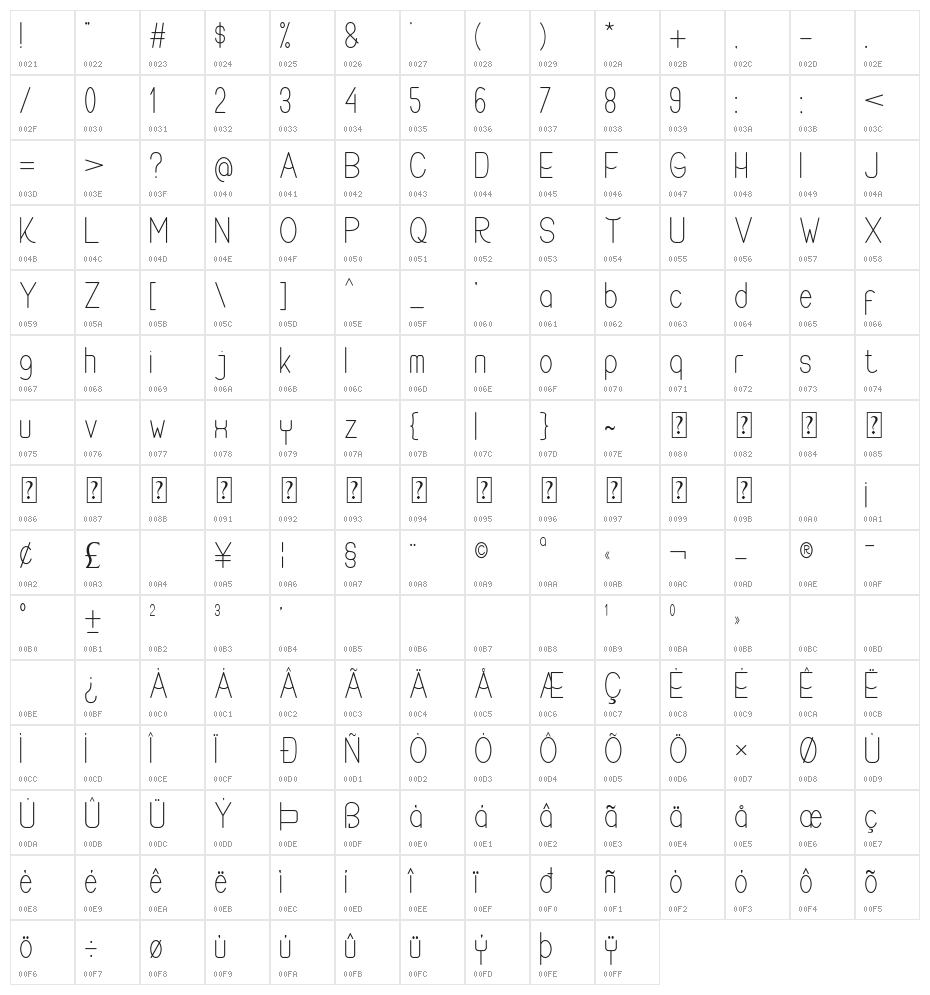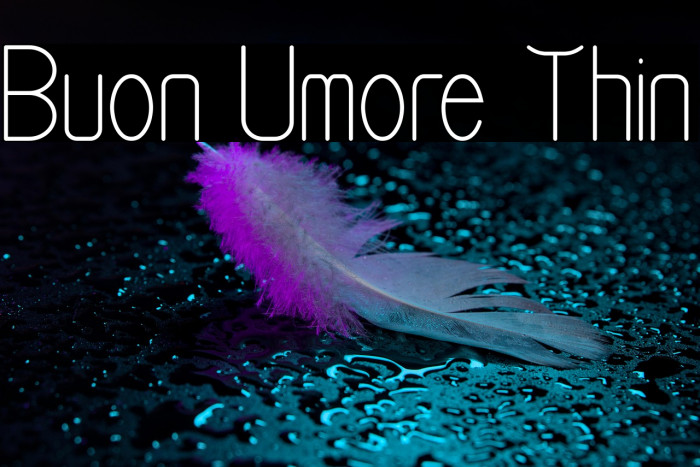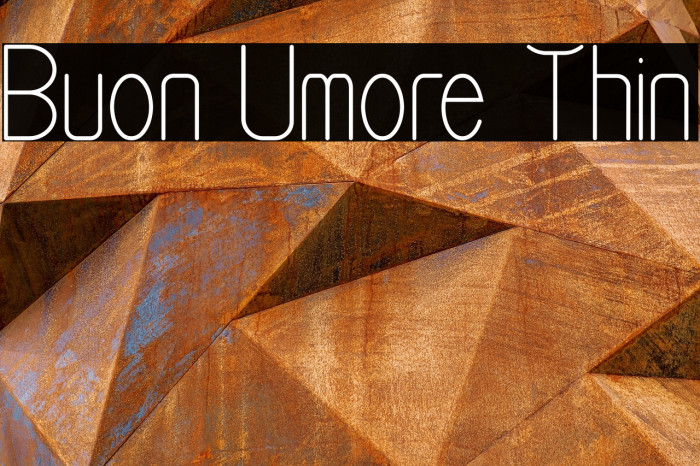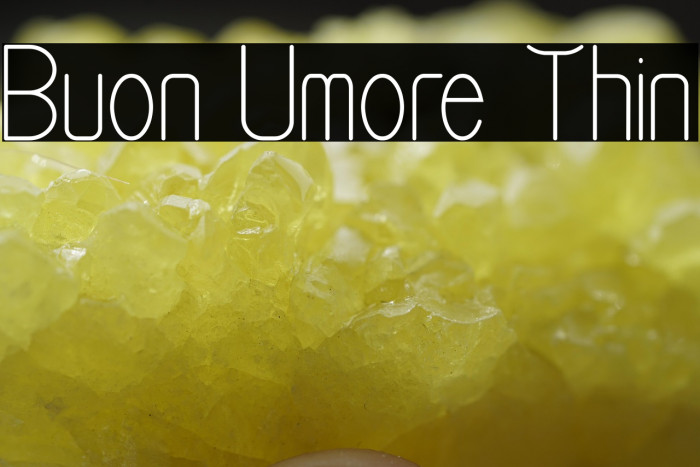
Buon Umore Thin Font
Buon Umore Thin Description
This font features a clean and modern design with a thin, elegant line weight. The characters are uniformly structured, offering a sleek and contemporary appearance. Its geometric shapes and consistent line thickness provide a sense of balance and clarity. The uppercase and lowercase letters maintain a harmonious style, while the numerals and special characters complement the overall aesthetic. This font is ideal for projects that require a minimalist and sophisticated look, ensuring readability and style.